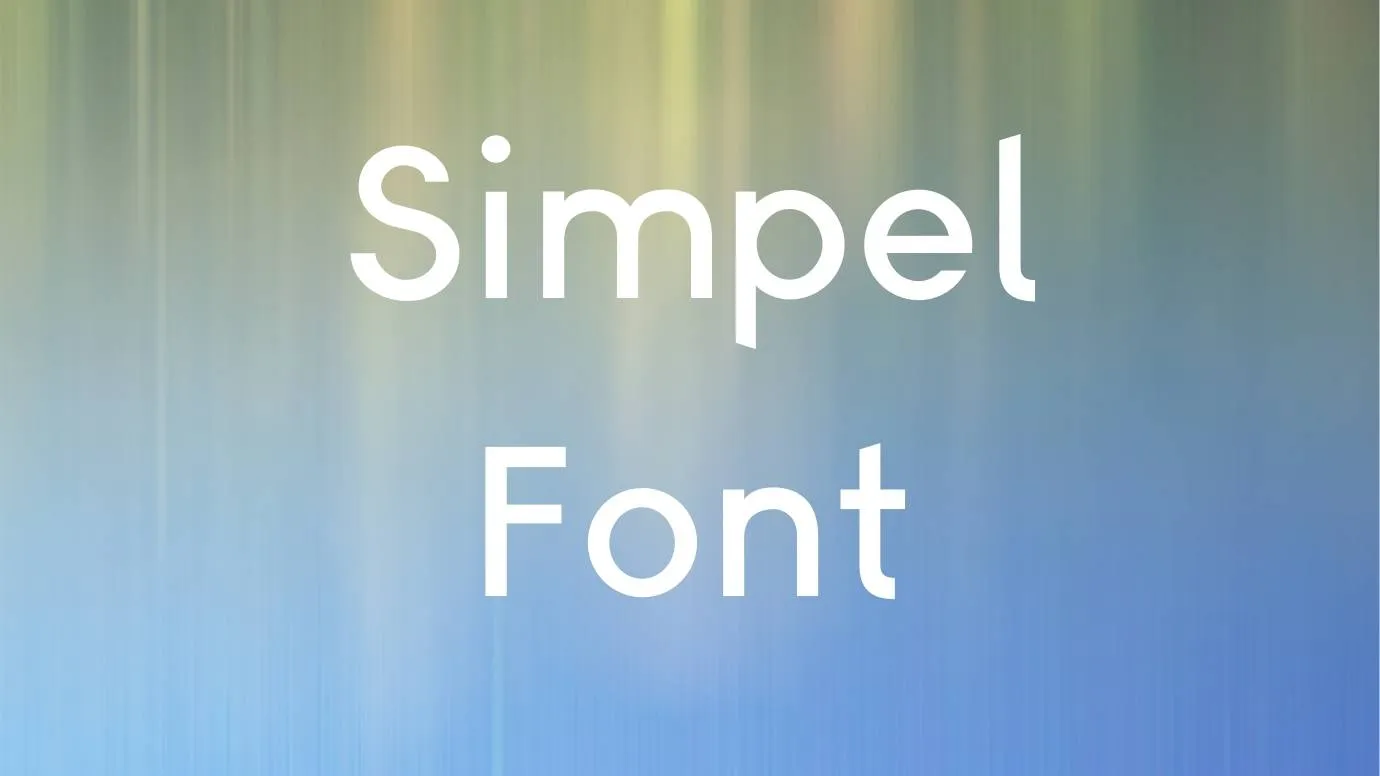
Simpel Font Family is a modern and classic typeface that is famous in the whole designing industry named Simpel Font. This attractive font is designed by Mr. Janko Jovanovic.
This tremendous font has a low contrast that is very best and suitable for different long text Passage. This cute font has fine and clean textures.
Simpel Font
NameSimpel Font
TypeSans-serif
DesignerMr. Janko Jovanovic